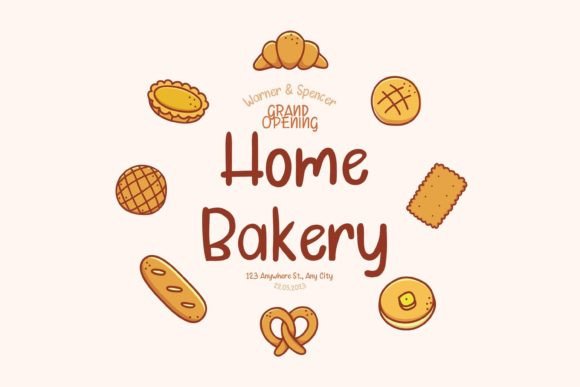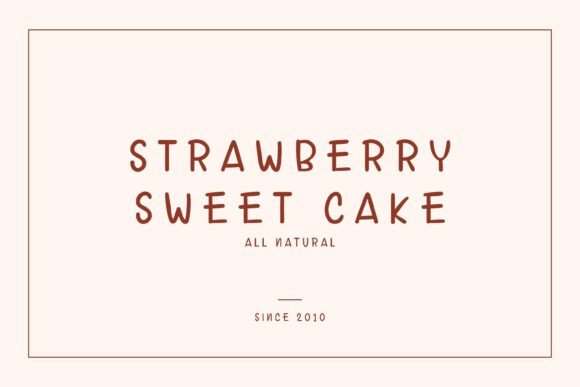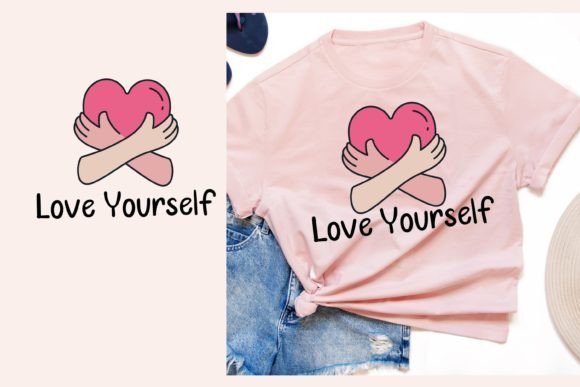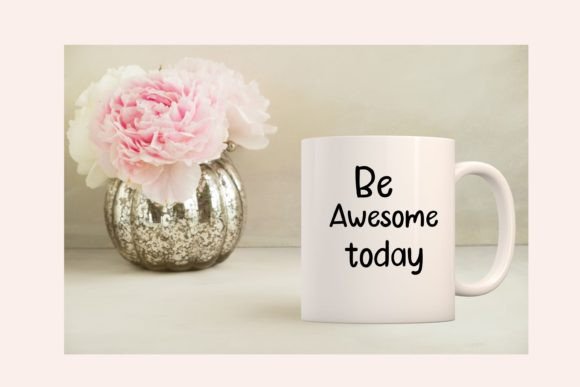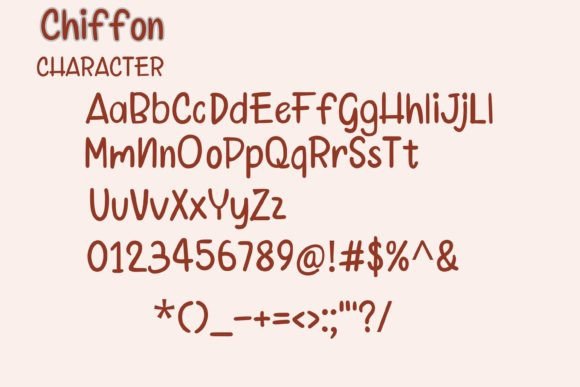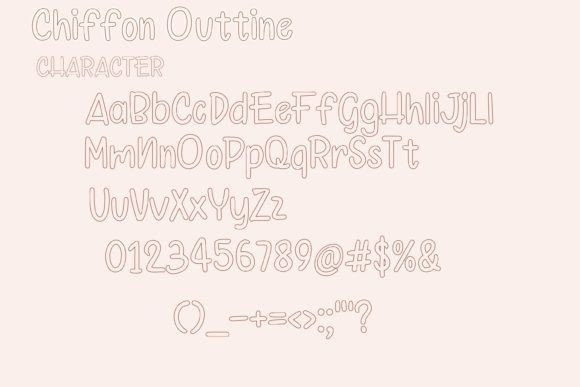
Discover the Charm of Chiffon Font: Elevate Your Designs with Elegance and Whimsy
In the world of typography, few fonts manage to capture the essence of charm and elegance as effortlessly as the Chiffon Font. This lovely and charming display font has been making waves among designers and crafters alike, and for good reason. Its unique blend of style, tidiness, and cleanliness makes it an ideal choice for a wide range of projects, from formal and official designs to more informal and playful creations.
The Characteristics of Chiffon Font
So, what sets Chiffon Font apart from other display fonts? For starters, its stylish and clean design makes it incredibly versatile. Whether you’re working on a logo, a poster, a website, or any other design project, Chiffon Font is sure to make a lasting impression. Its tidy and organized structure gives it a sense of sophistication and professionalism, making it perfect for formal projects such as business cards, brochures, and letterheads.
But Chiffon Font is not just limited to formal designs. Its playful and whimsical touch also makes it an excellent choice for more informal projects, such as social media graphics, party invitations, and craft projects. The font’s charming and lovely aesthetic is sure to add a touch of personality and fun to any design, making it perfect for designers and crafters who want to add a bit of whimsy to their work.
The Benefits of Using Chiffon Font
So, why should you consider using Chiffon Font in your designs? For one, it’s an excellent way to add a touch of elegance and sophistication to your work. The font’s clean and stylish design makes it easy to read and understand, even at smaller sizes, making it perfect for body text and captions.
But Chiffon Font is more than just a pretty face. It’s also an incredibly versatile font that can be used in a wide range of design projects. Whether you’re working on a logo, a poster, a website, or any other design project, Chiffon Font is sure to make a lasting impression.
Another benefit of using Chiffon Font is that it’s an excellent way to add a touch of personality to your designs. The font’s charming and lovely aesthetic is sure to make your designs stand out from the crowd, and its playful and whimsical touch is perfect for designers and crafters who want to add a bit of fun and personality to their work.
How to Use Chiffon Font in Your Designs
So, how can you start using Chiffon Font in your designs? Here are a few tips to get you started:
- Pair it with other fonts: Chiffon Font pairs well with a wide range of fonts, from serif and sans-serif fonts to script and display fonts. Experiment with different font combinations to find the perfect look for your design.
- Use it for headings and titles: Chiffon Font is perfect for headings and titles, where its stylish and clean design can really shine.
- Add a personal touch: Use Chiffon Font to add a personal touch to your designs, whether it’s a playful and whimsical touch or a more elegant and sophisticated one.
In conclusion, Chiffon Font is a lovely and charming display font that is sure to elevate your designs with elegance and whimsy. Its stylish, tidy, and clean design makes it incredibly versatile, and its playful and whimsical touch is perfect for designers and crafters who want to add a bit of personality to their work.
Whether you’re working on a formal or informal design project, Chiffon Font is sure to make a lasting impression. So why not give it a try and see how it can transform your designs?
With Chiffon Font, your business will seem more lovely, and your designs will be sure to stand out from the crowd. So don’t wait – discover the charm of Chiffon Font today and take your designs to the next level!